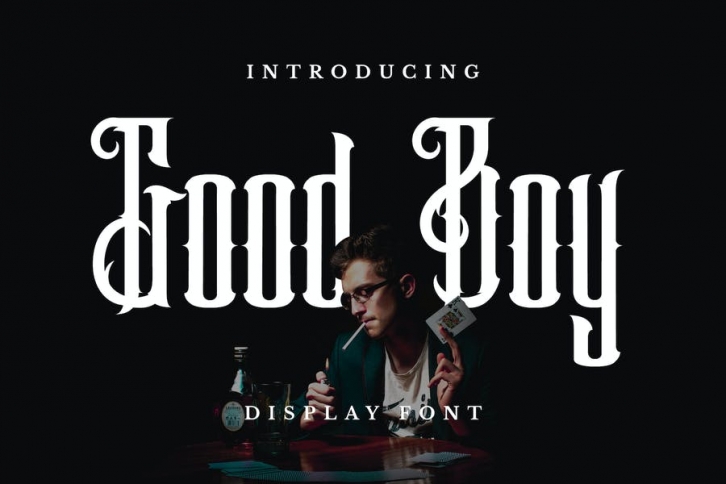
This font is suitable in many ways for your latest projects. Perfect for logos & branding, photography, invitations, watermarks, advertisements, product designs, stationery, wedding designs, labels, product packaging, special events and much more.
• Uppercase & Lowercase